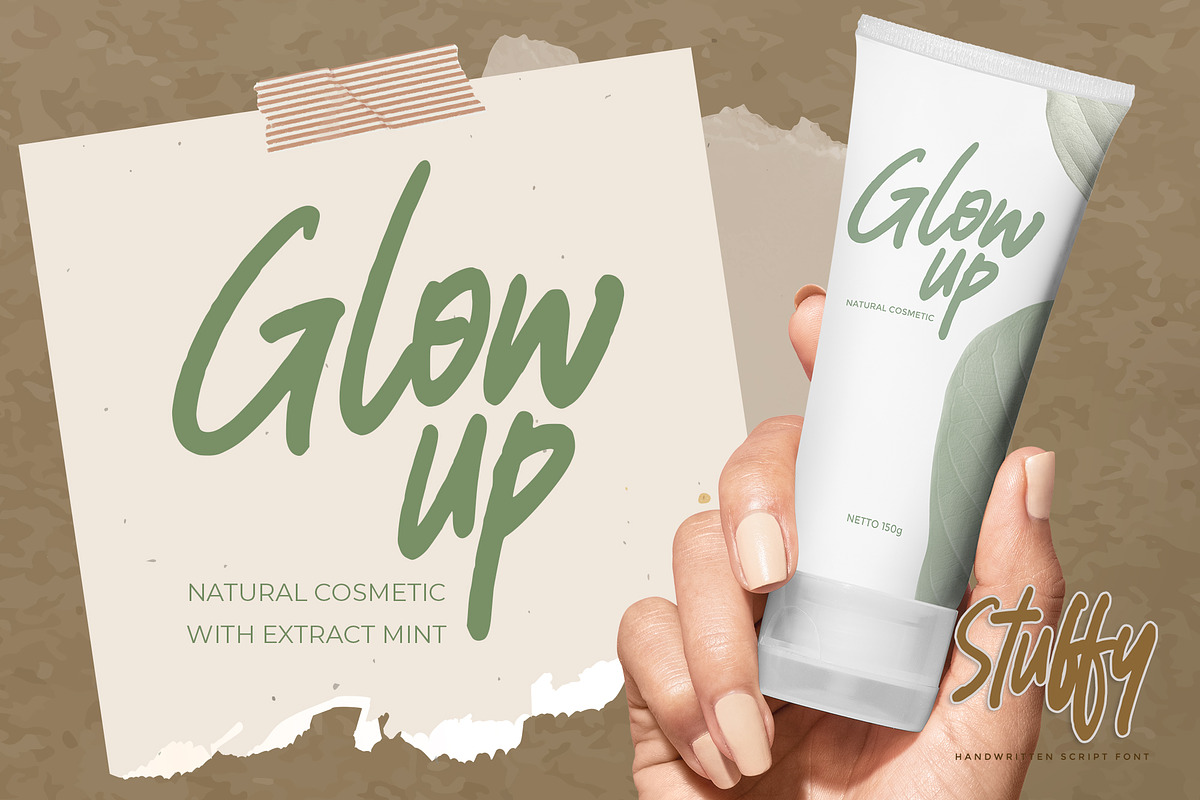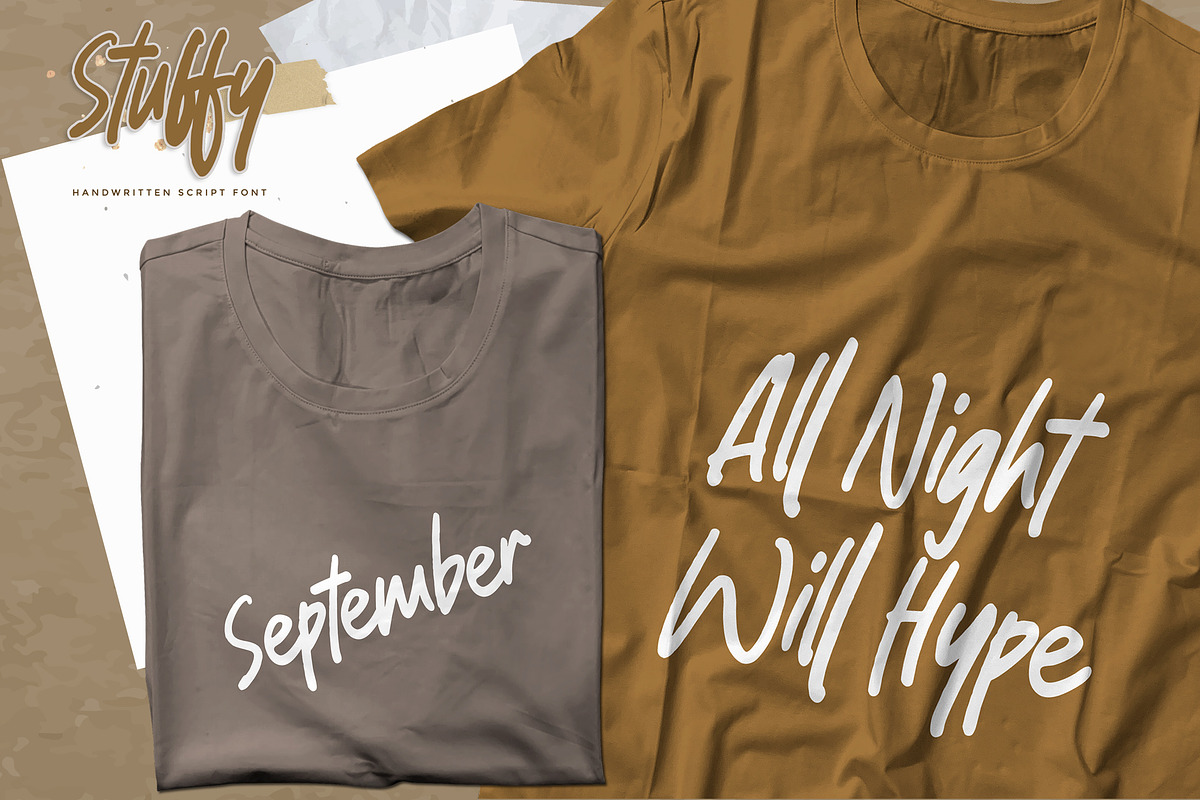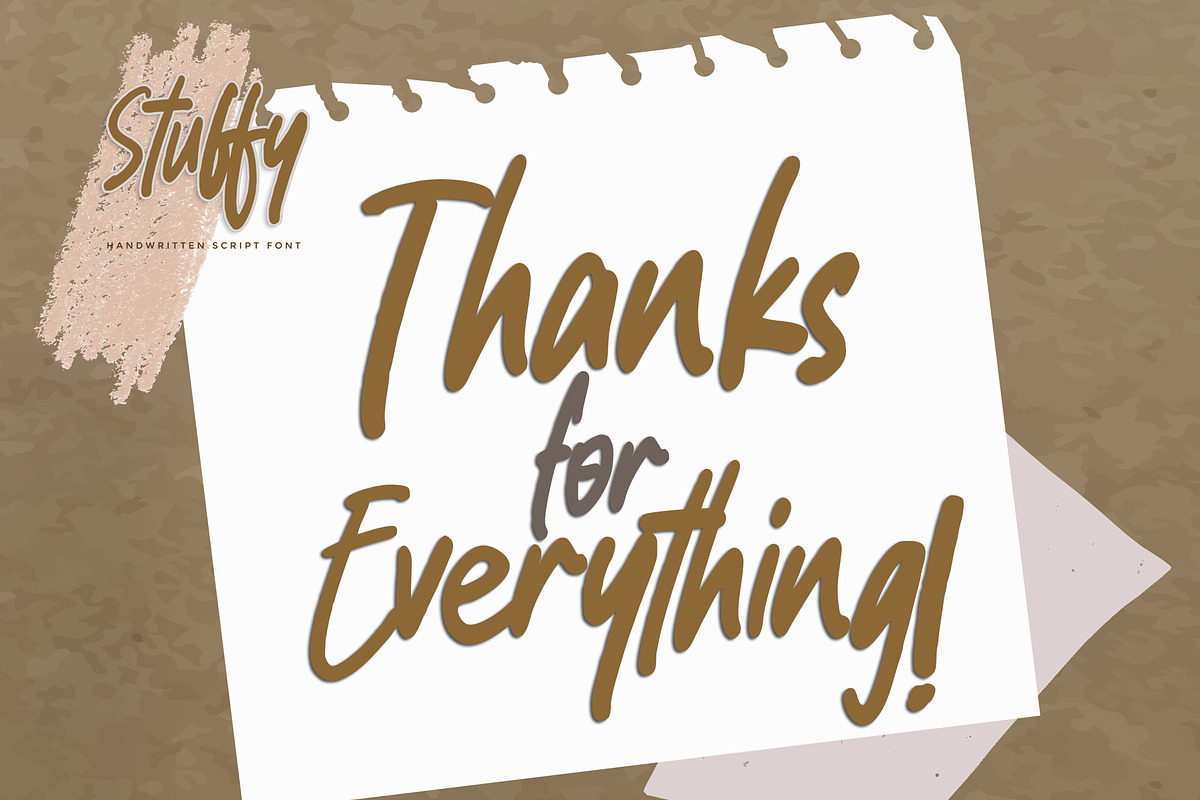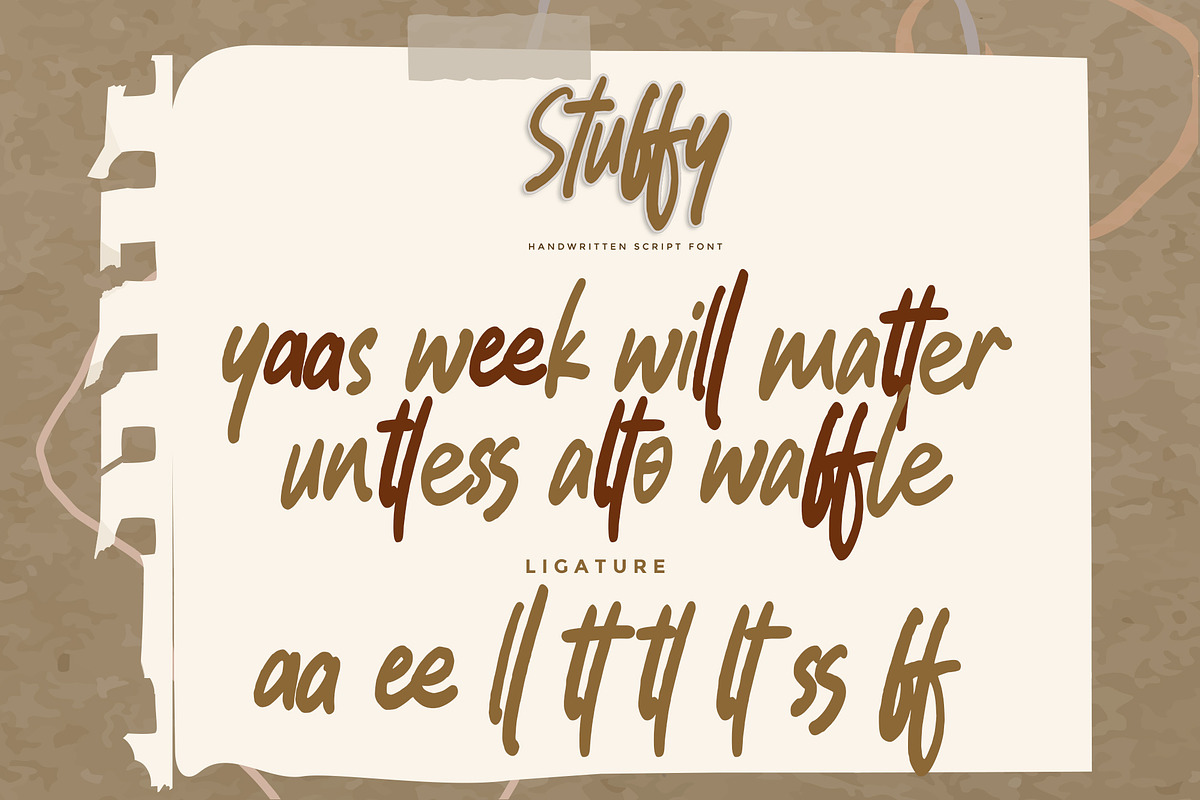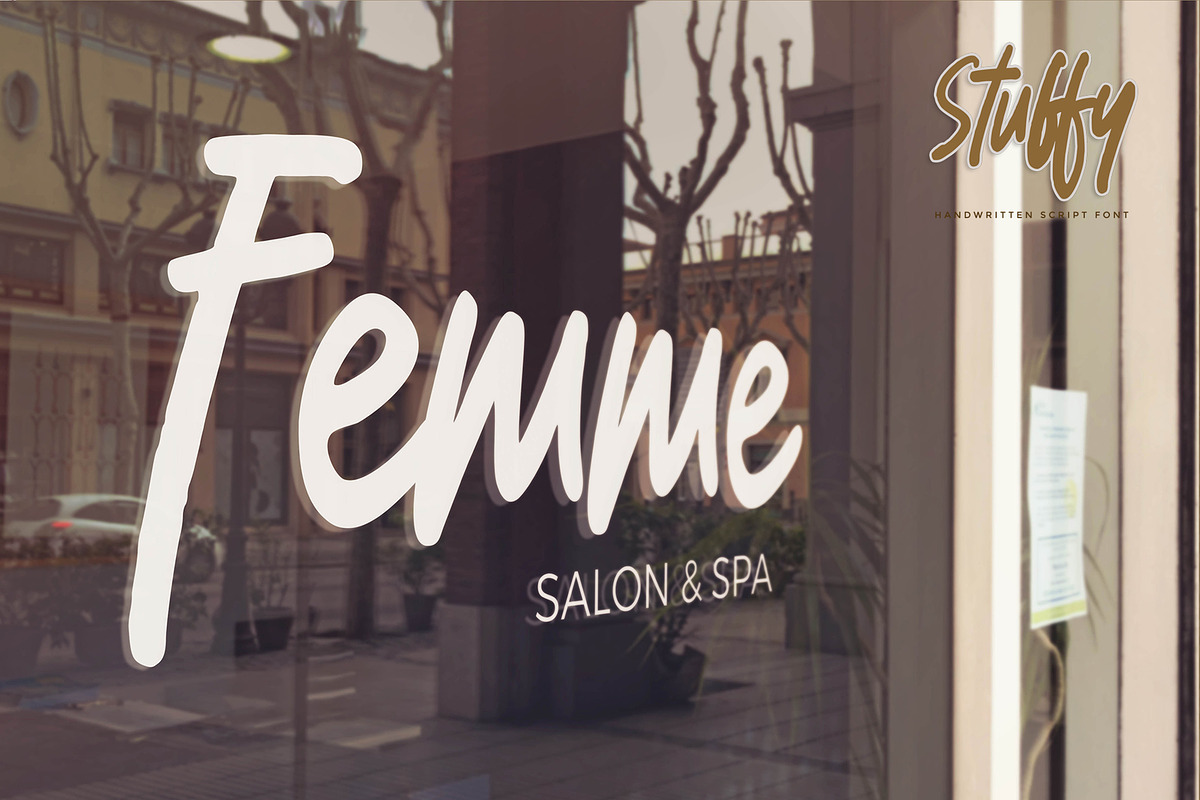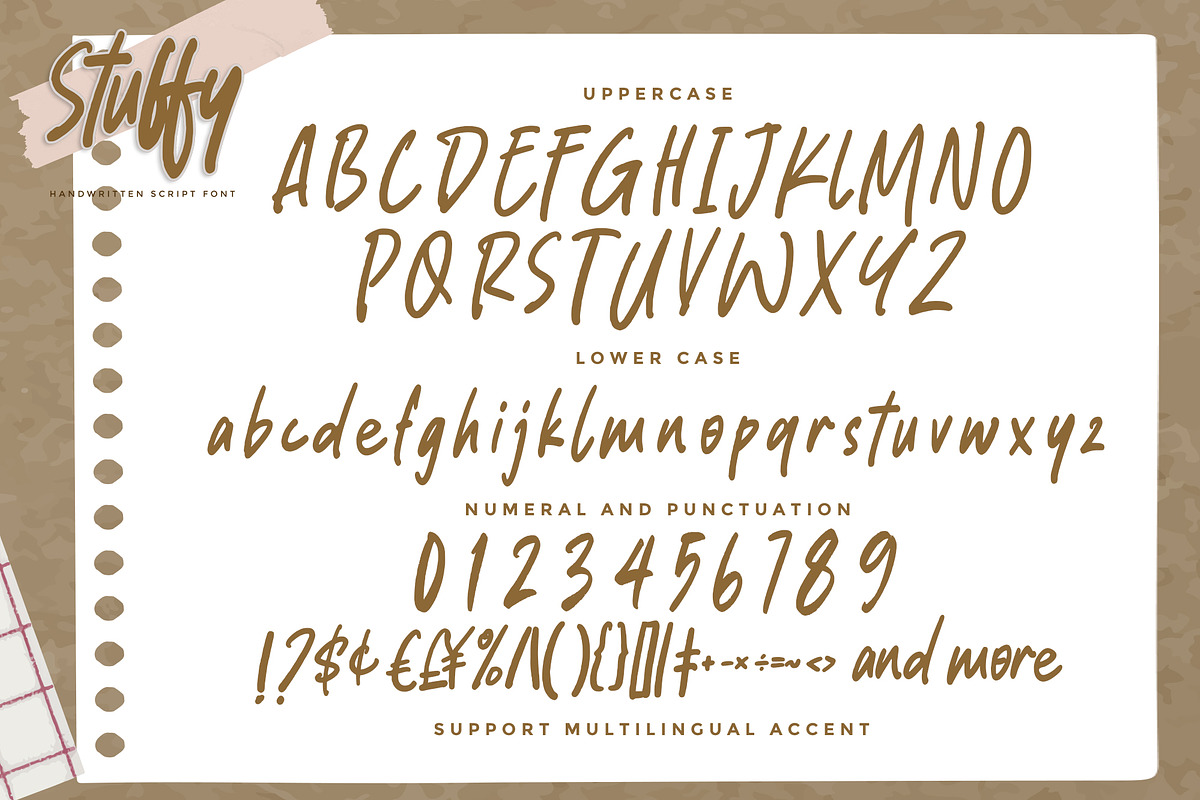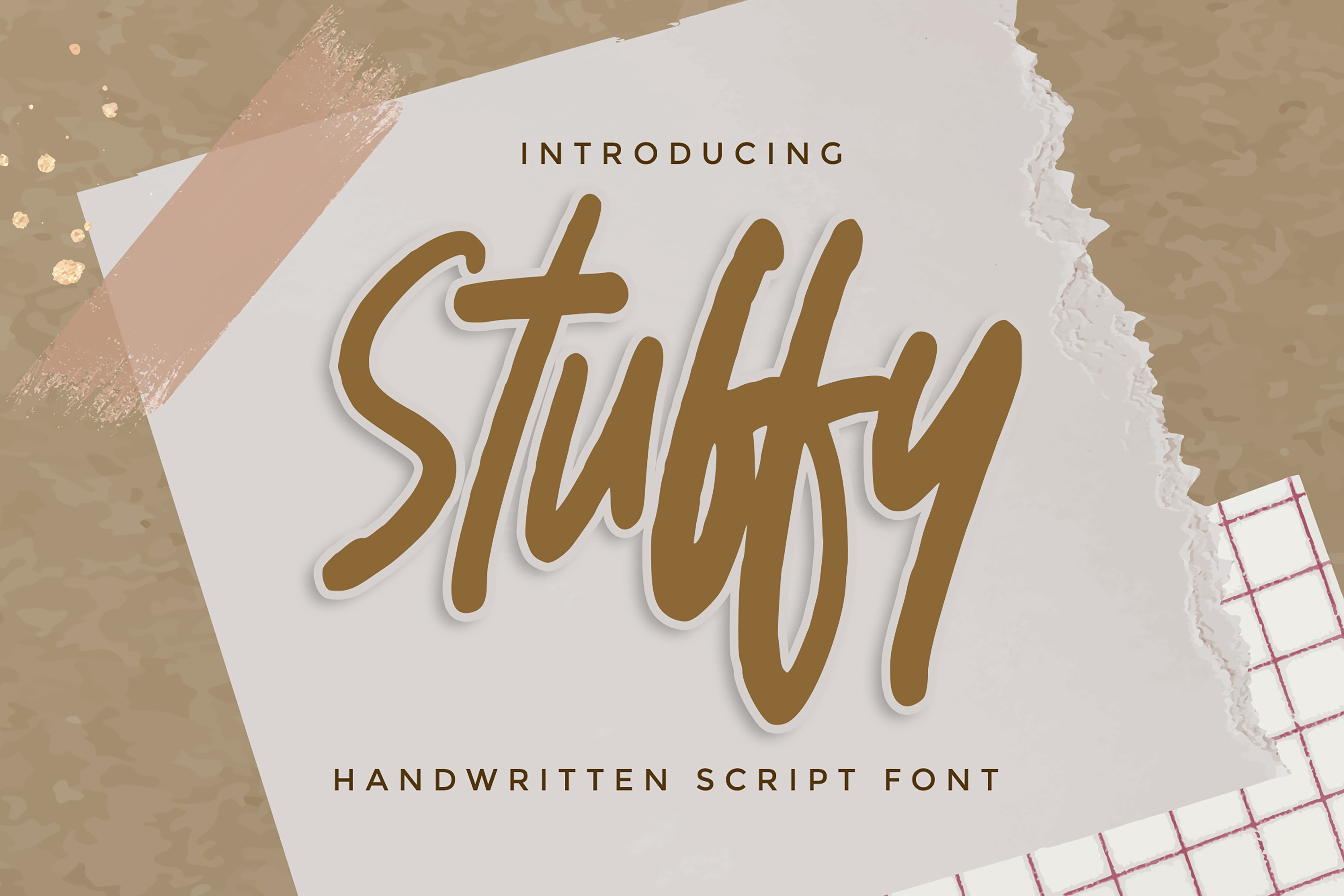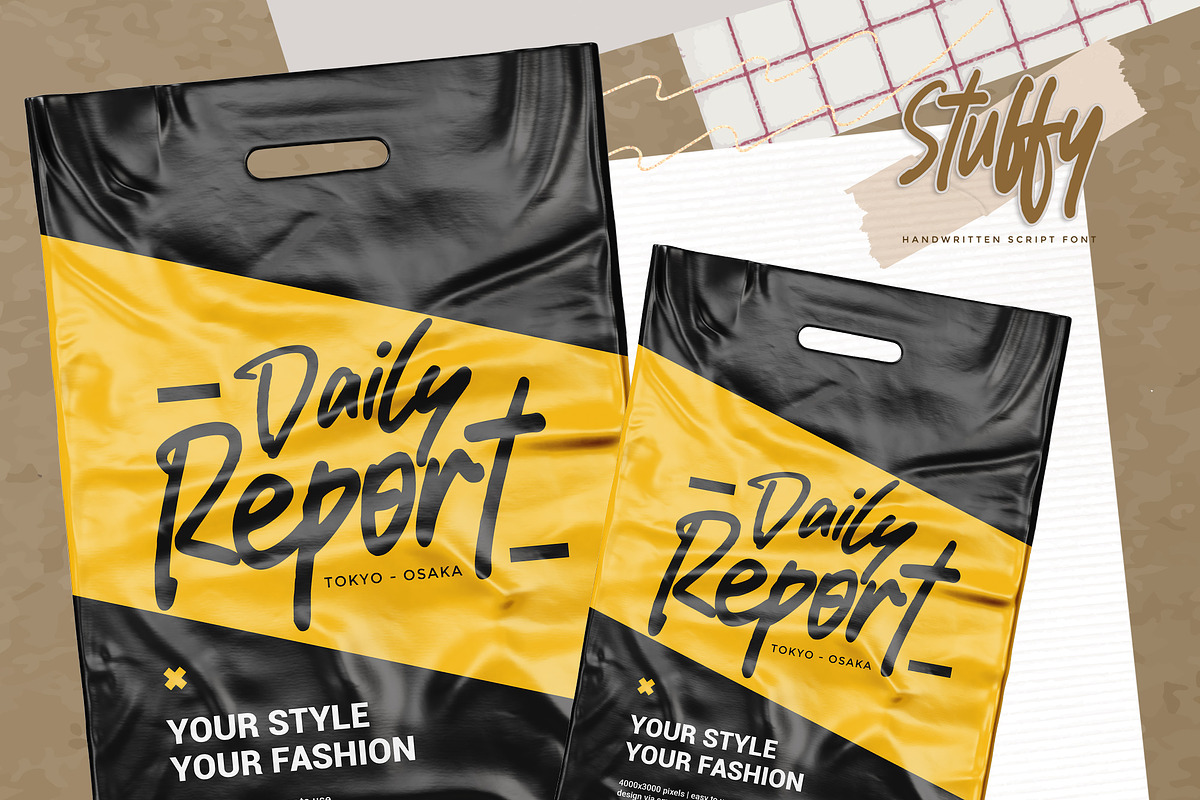
Stuffy - Handwritten Script Font
Stuffy - Handwritten Script Font font with a natural handwritten feel. This handmade font will make your design has a beautiful natural touch for each details. It is perfect for any design project as Invitation,logo, book cover, craft or any design purposes. This font is PUA encoded which means you can access all of ligatures.